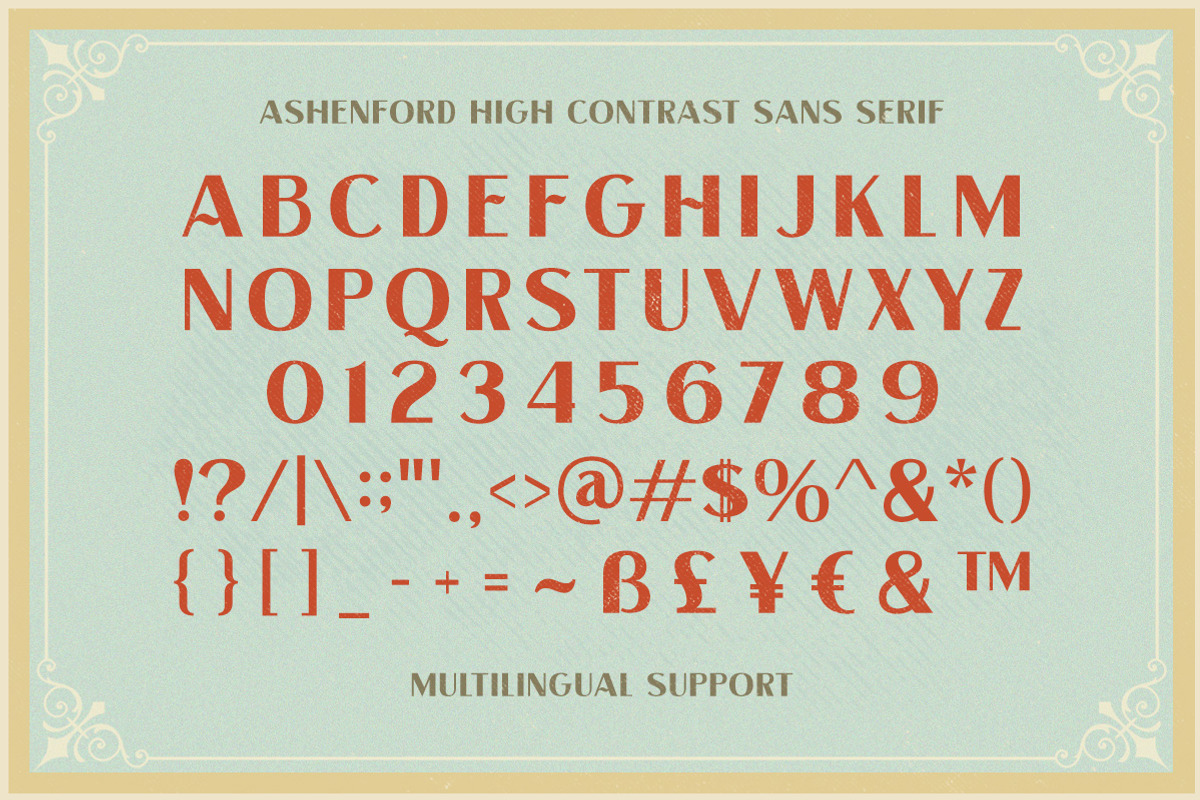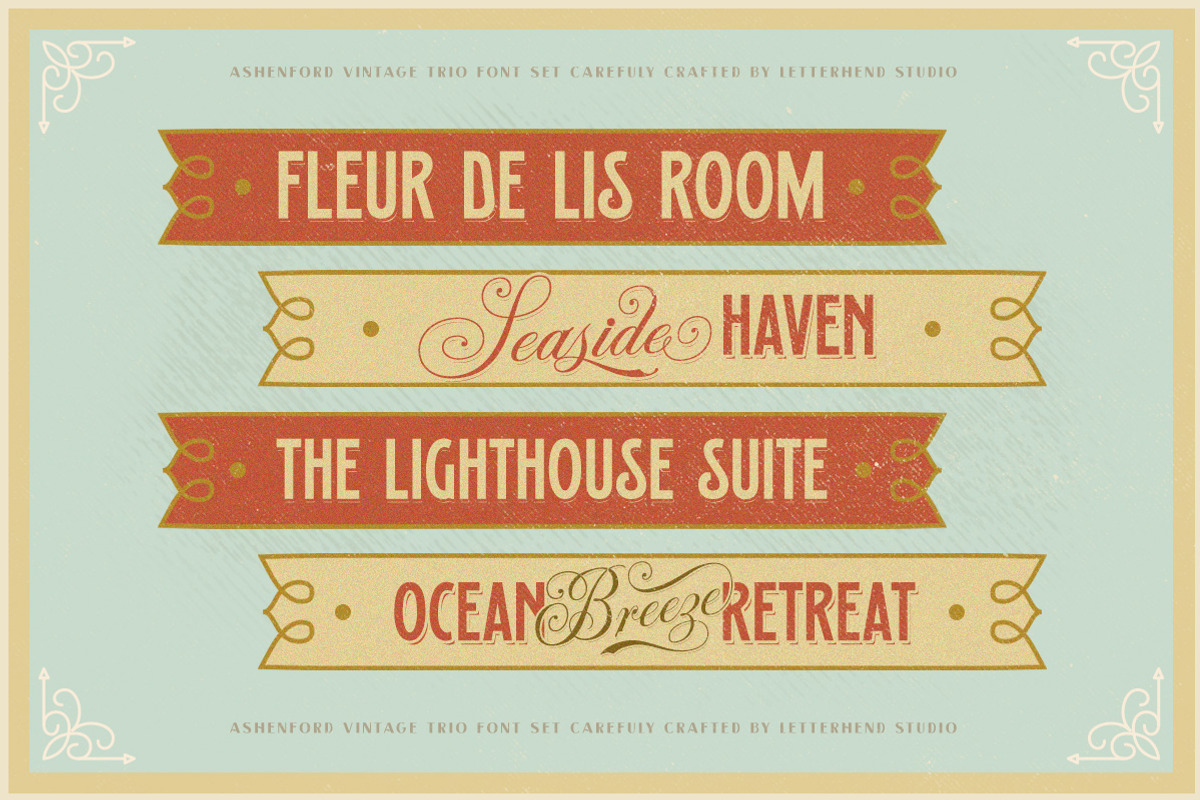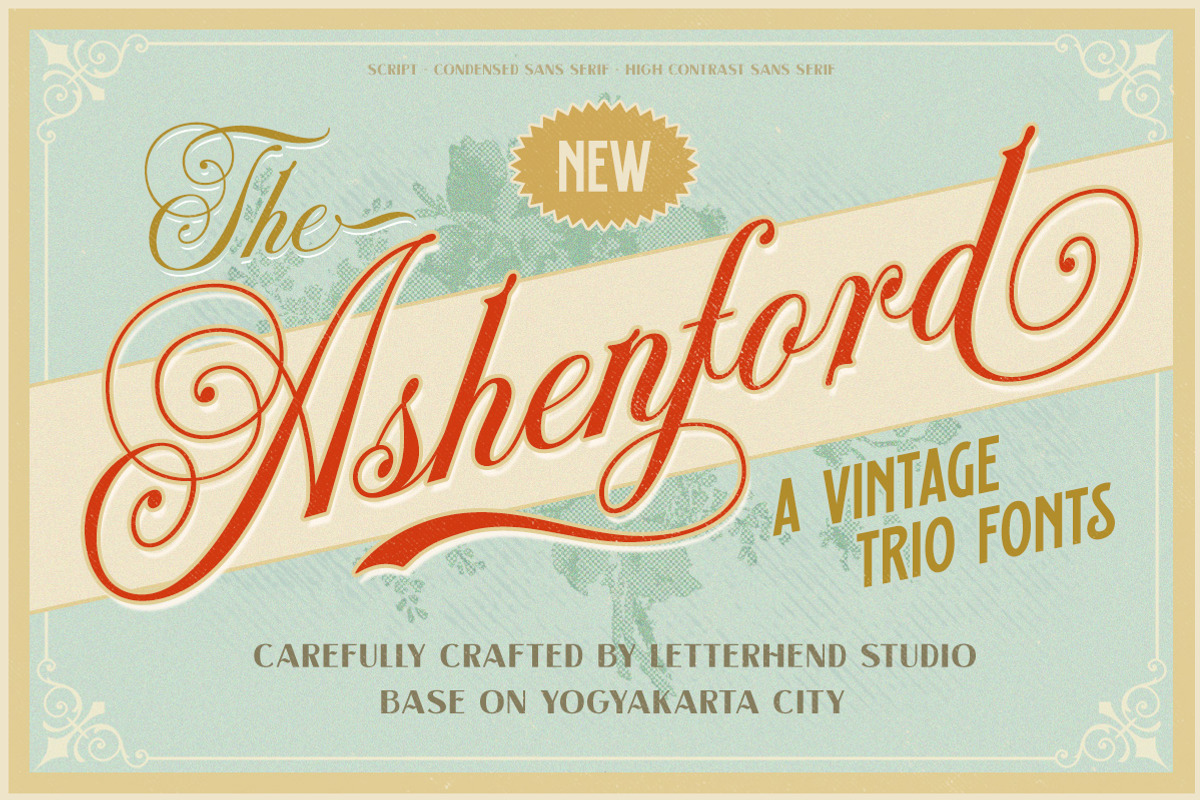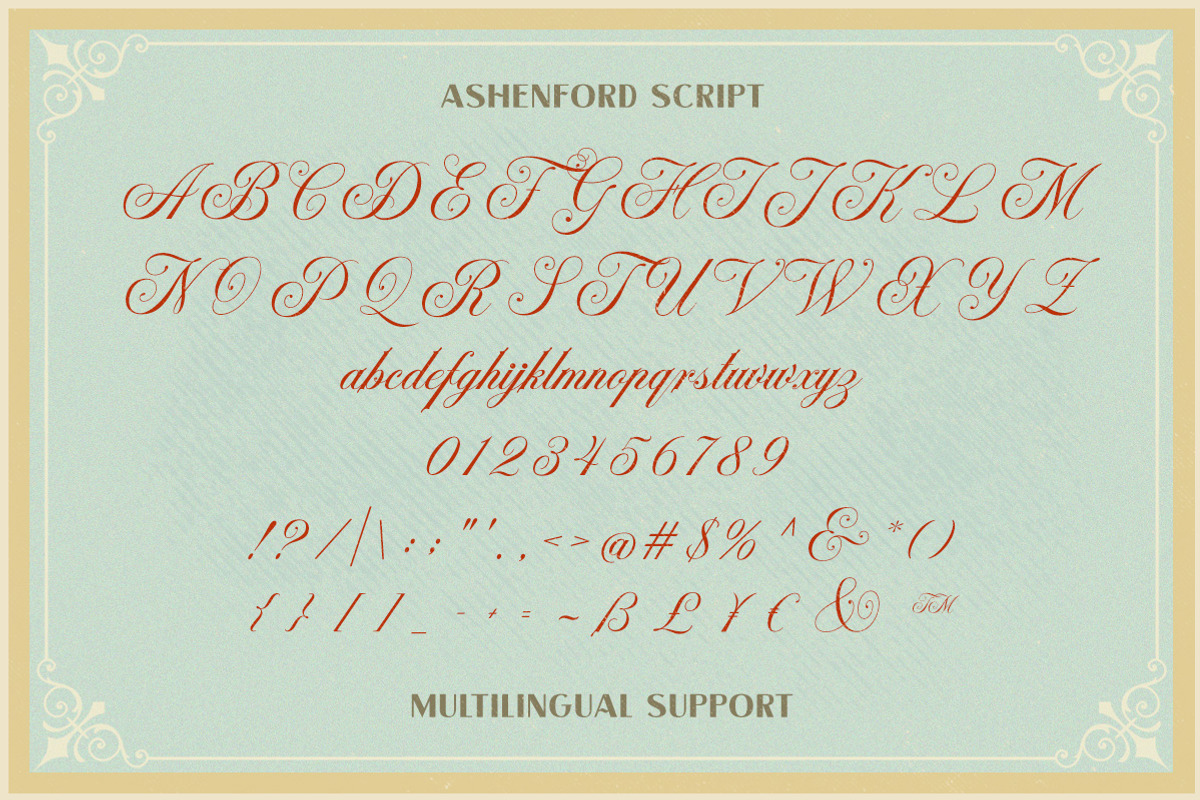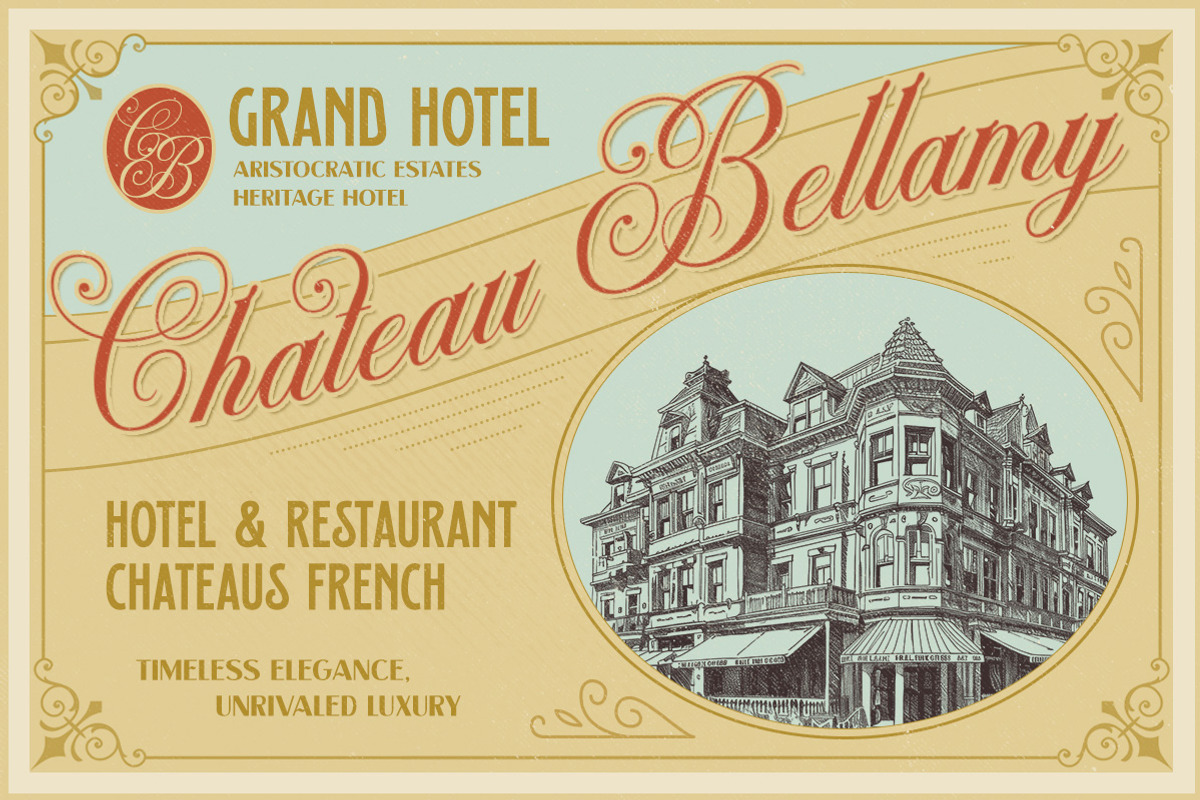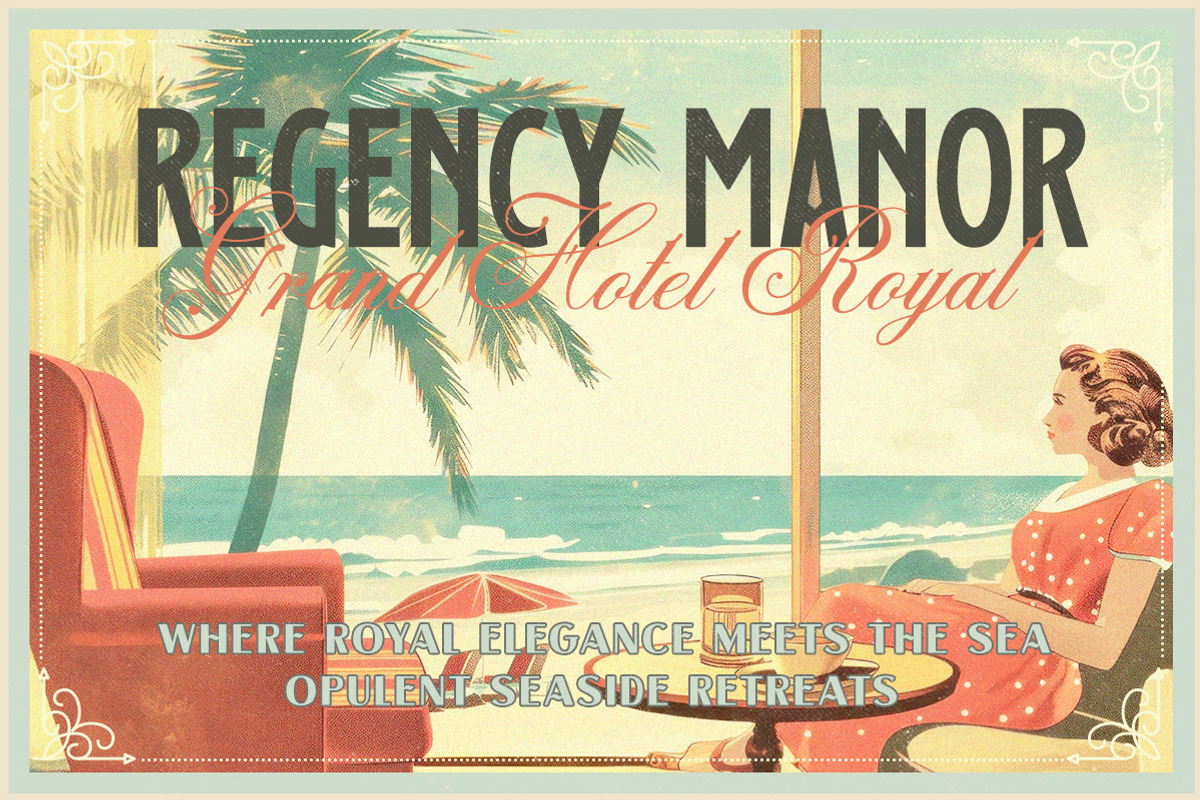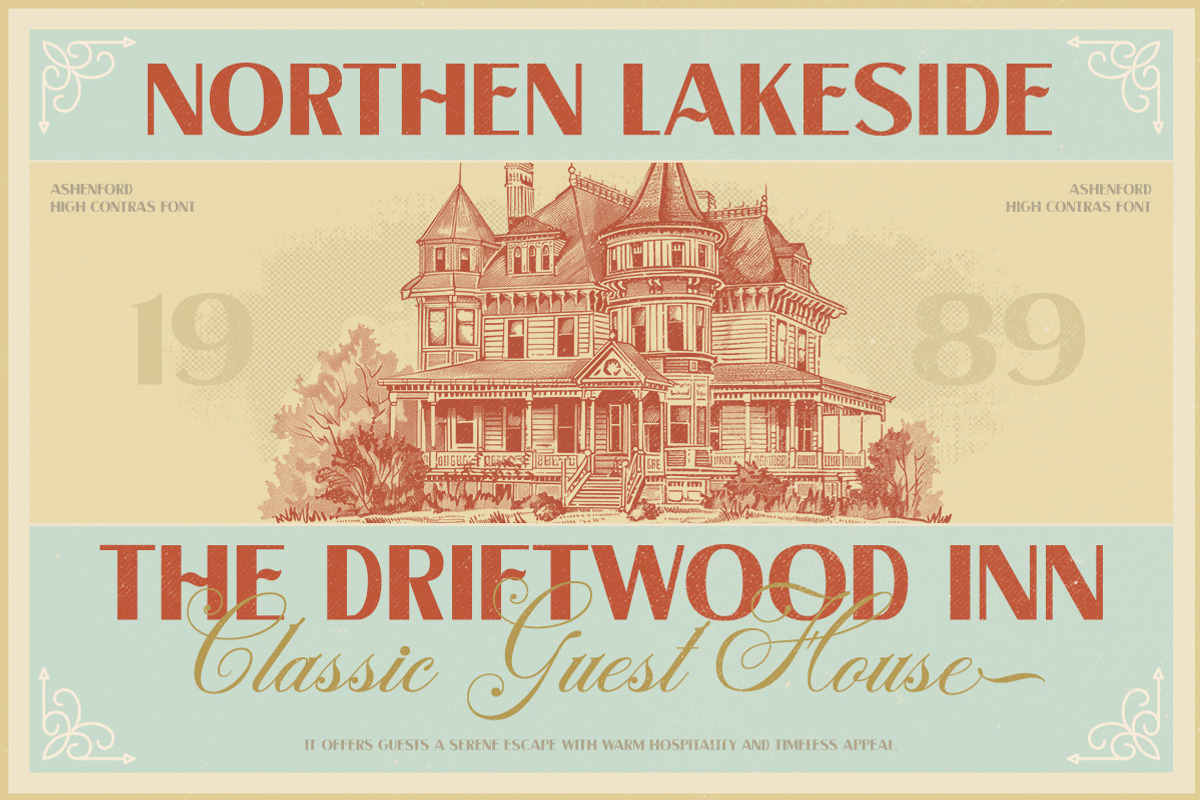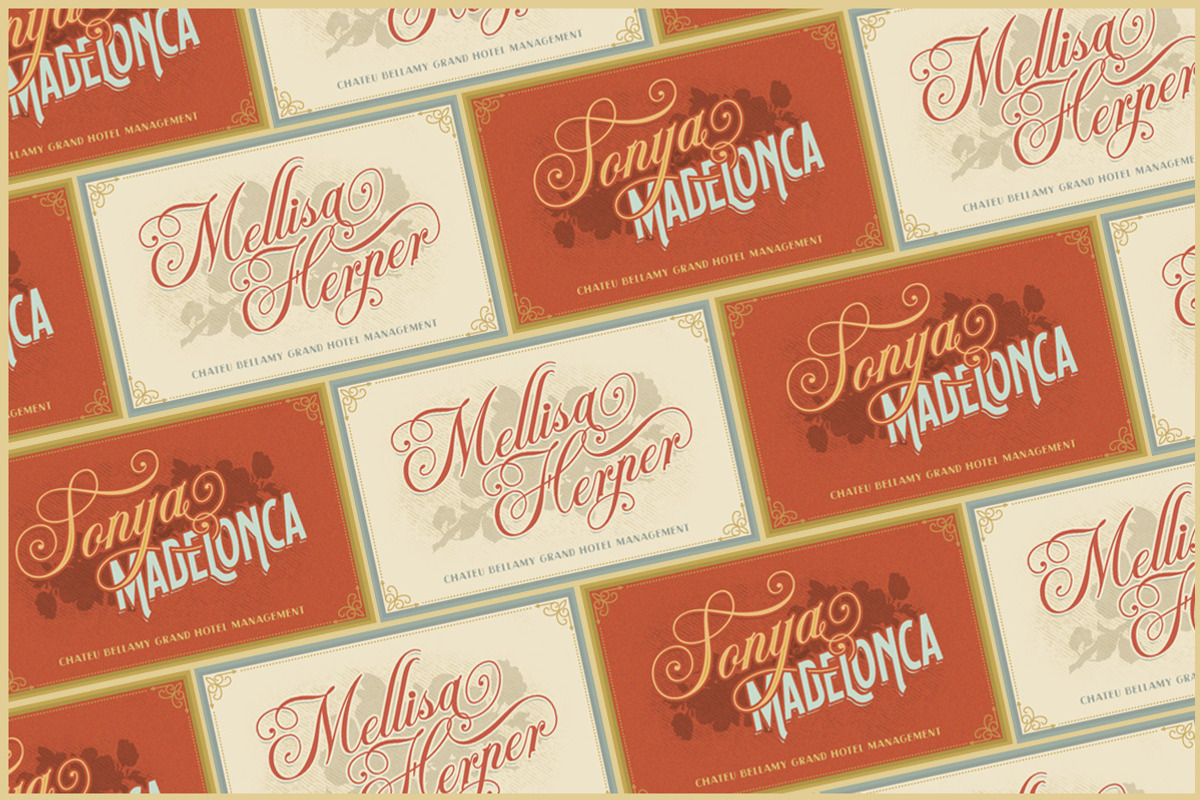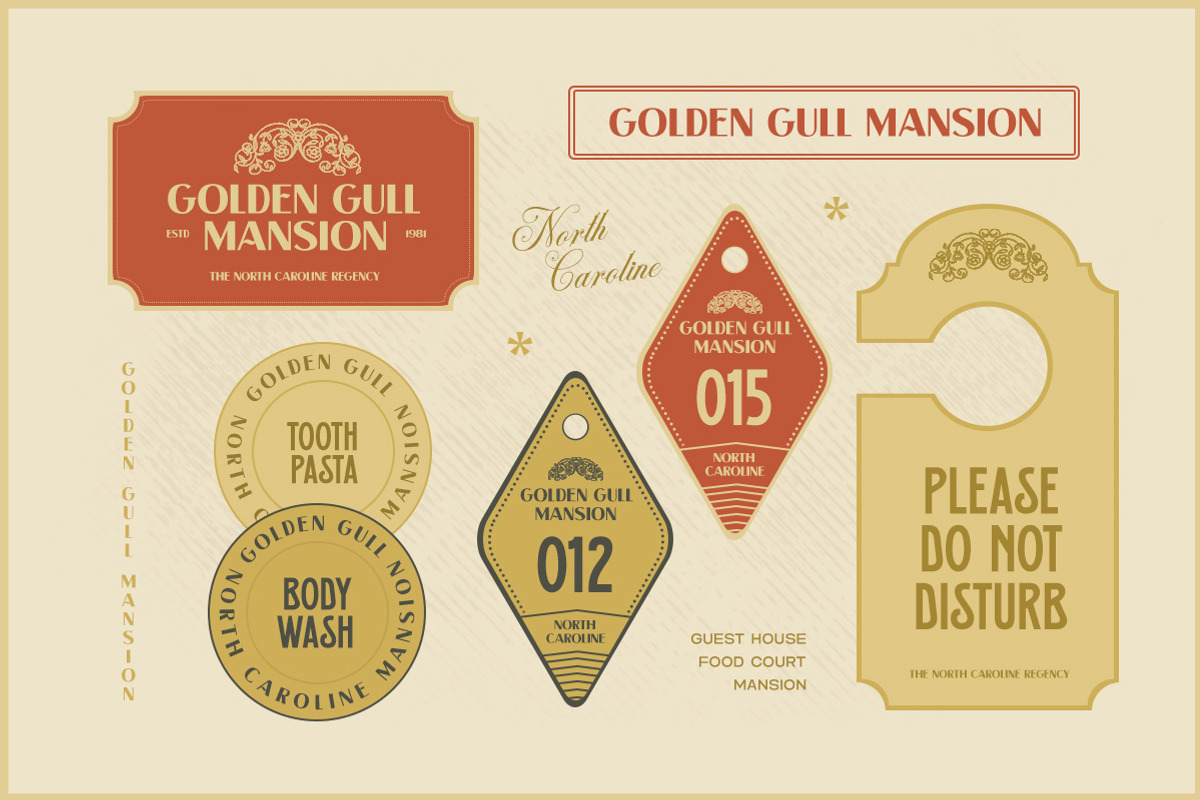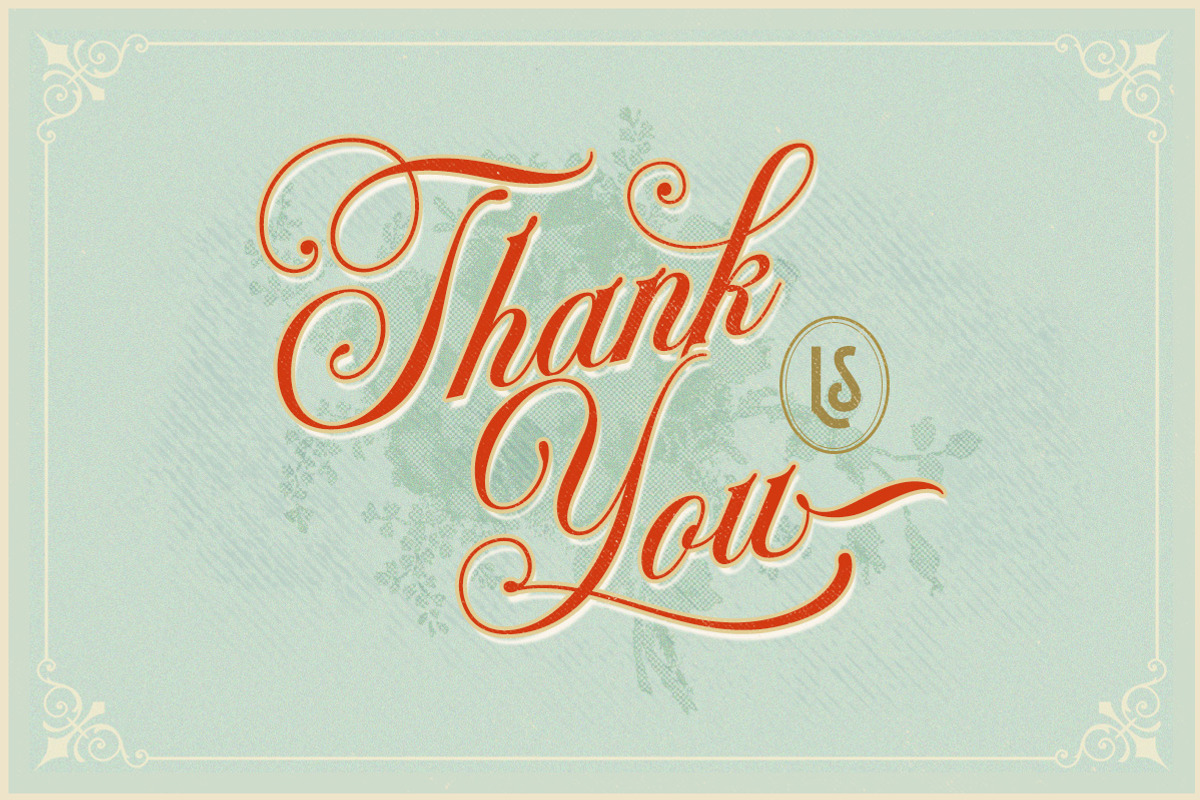
Ashenford – A Vintage Trio Font
Step into timeless elegance with Ashenford, a meticulously crafted font trio that blends classic sophistication with vintage charm. Inspired by old-world signage, elegant calligraphy, and refined typography, this collection features a stylish script, a condensed sans-serif, and a high-contrast sans-serif—perfect for branding, logos, packaging, posters, and editorial designs.